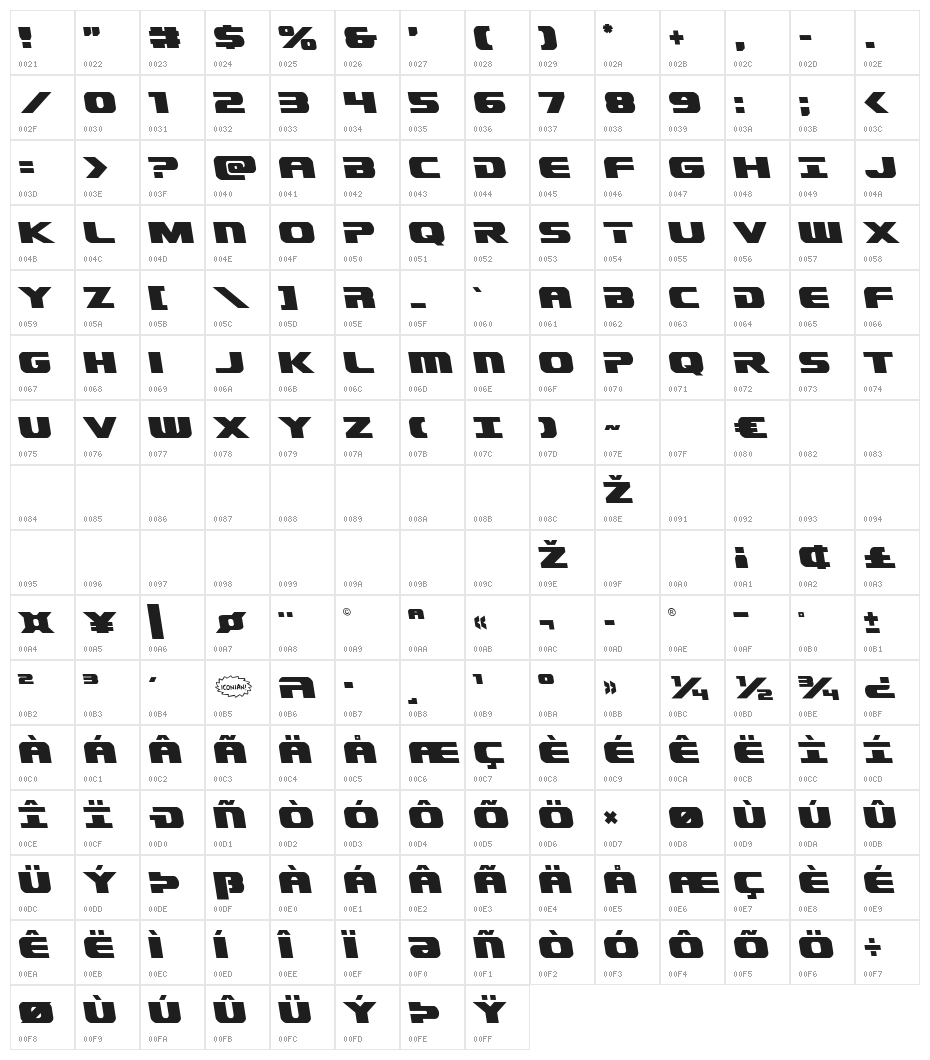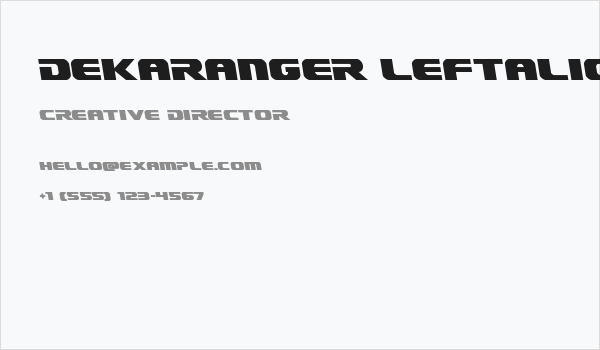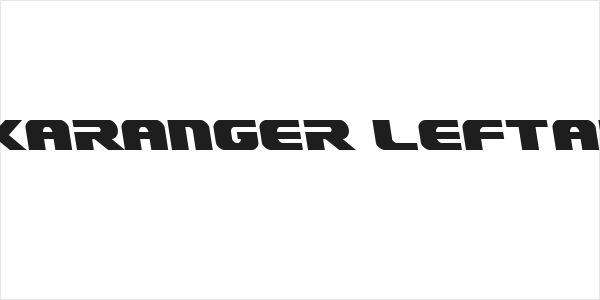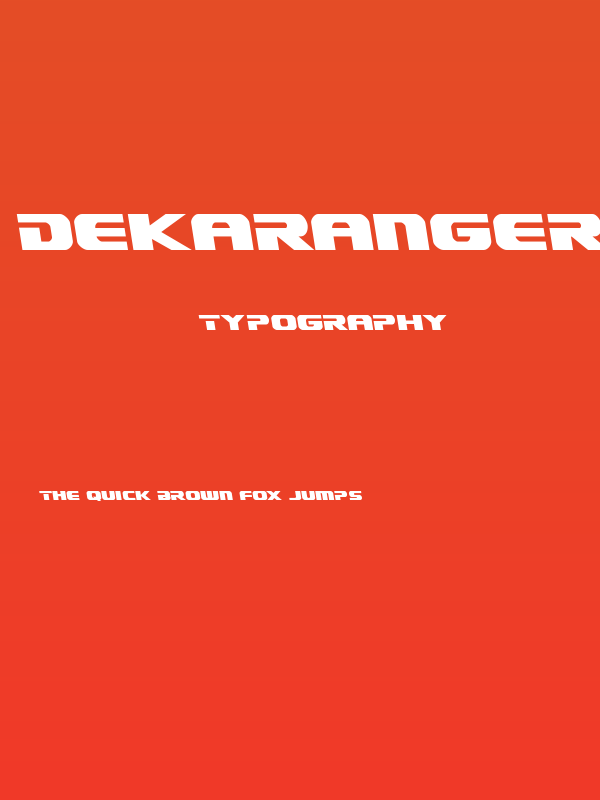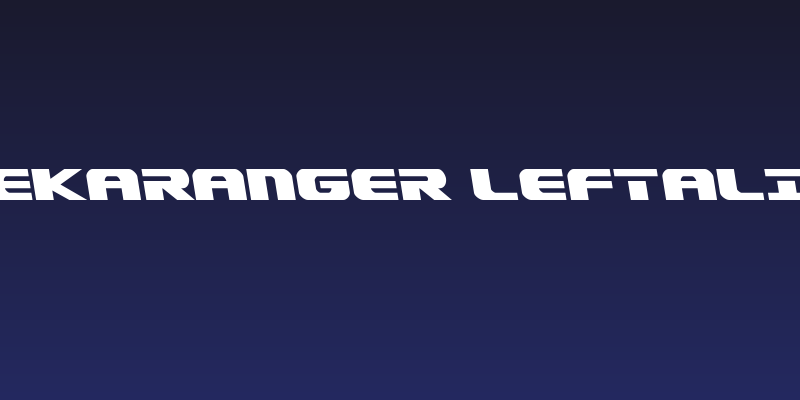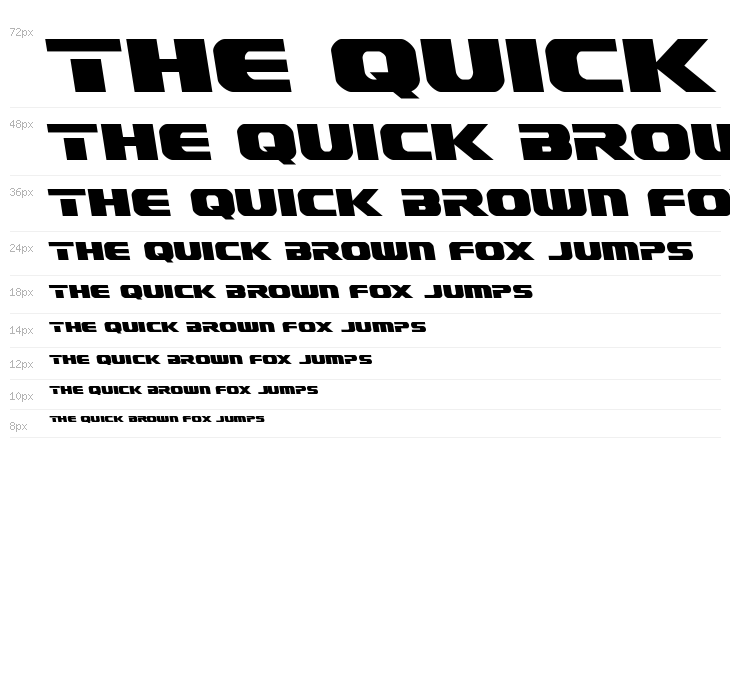
Dekaranger Leftalic Font
Dekaranger Leftalic Description
This font features a bold and dynamic style with a futuristic and angular design. The characters are wide and have a strong presence, making them ideal for attention-grabbing headlines. The strokes are thick, with a medium contrast that enhances readability while maintaining a unique aesthetic. The font's geometric shapes and sharp angles give it a modern and edgy look, suitable for projects that require a contemporary and impactful typeface. Its distinct style makes it stand out, perfect for creative and innovative designs.
| Proposed Projects | Ideal for sci-fi movie posters, video game titles, tech branding, and futuristic-themed designs. |